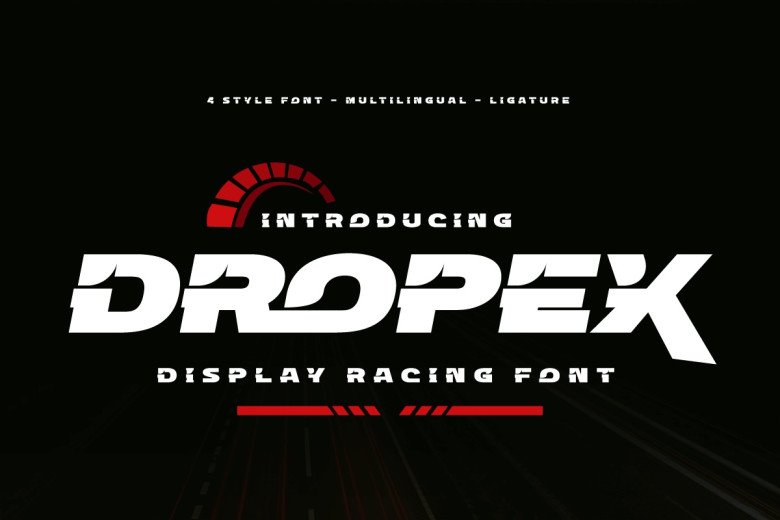
Dropex Racing Font is a bold, strong, and uniquely shaped font, very masculine and easy to read. We have carefully crafted this font to make your design project remarkably different from others you have used.
The following have been employed in my free and premium products: Regular Style 4 slightly dissimilar styles, allowing you to select according to your preference; Without a doubt, the use of this font injects life into any design project.
Dropex Display Font